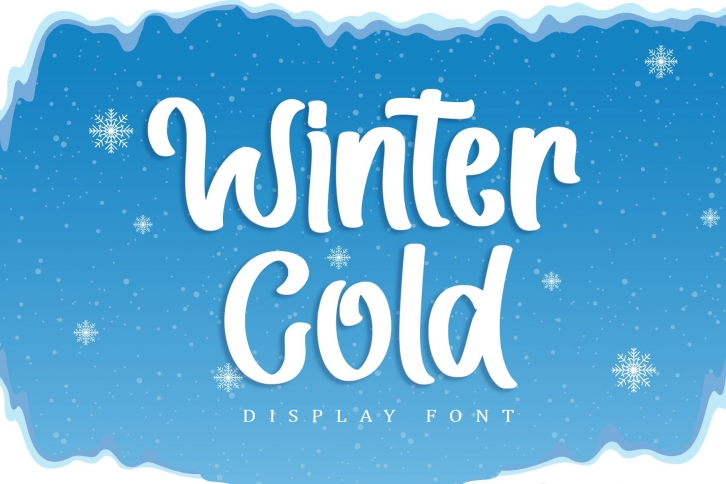
Winter Cold is a great font that was designed by Sakha Design. Imagine the amount of combinations you can create using this font! The archive is 15.74 MB and it was released on November 8, 2022. Winter Cold looks beautiful on wedding invitations, greeting cards, logos, posters, labels, t-shirt designs, logos, business cards and is perfect for use in ink or watercolor works, fashion, magazines, packaging and food menus, children's books and more!